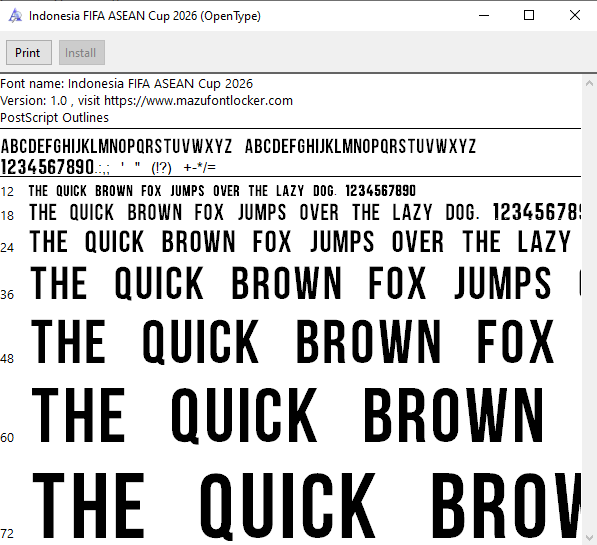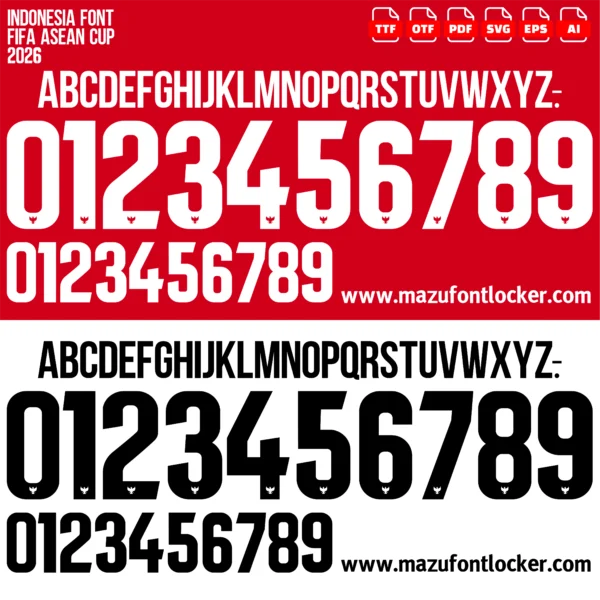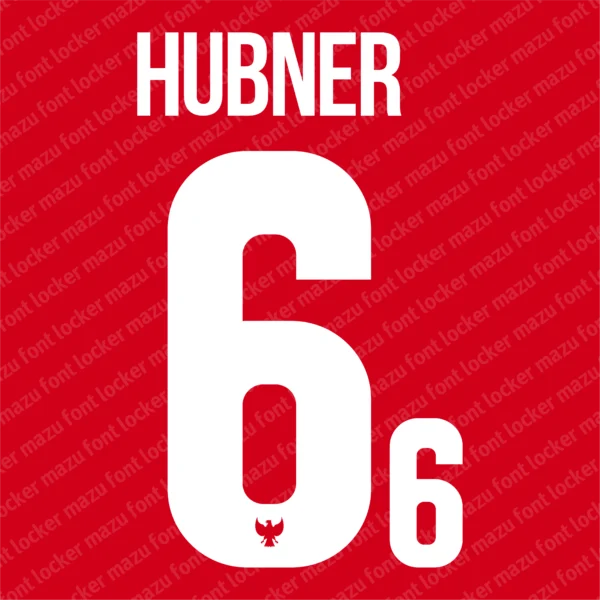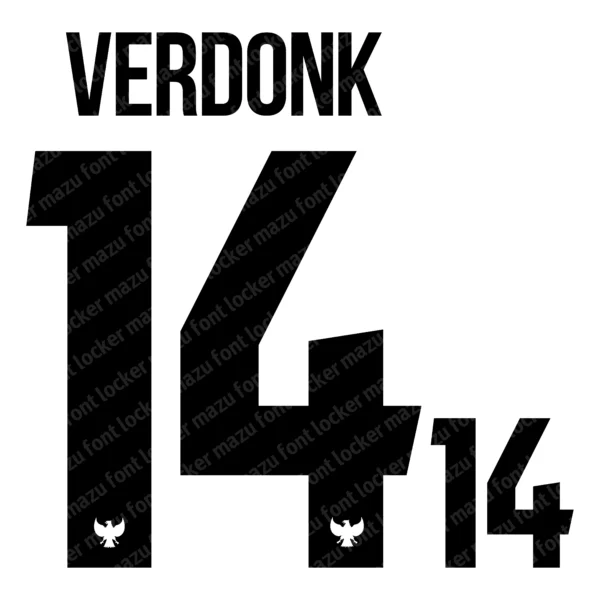
Indonesia FIFA ASEAN Cup 2026 Font Vector – Legendary Garuda Masterpiece
This font captures the razor-sharp, thunderous lettering that embodies Indonesia’s proud national identity, rich football heritage, legendary Garuda spirit, and fearless determination — delivering premium quality and explosive energy for jersey mockups, football graphics, sports branding, and fan creations.
Indonesia FIFA ASEAN Cup 2026 Font Vector – Garuda Heritage Typeface
The Indonesia FIFA ASEAN Cup 2026 Font Vector is a premium typeface that accurately recreates the official match lettering worn by the Indonesia national team during the 2026 FIFA ASEAN Cup campaign. This high-quality vector font kit captures the bold, clean, and instantly recognizable typography that perfectly complements the team’s iconic red and white identity.
Designed for professional designers, football enthusiasts, and passionate Indonesian supporters, the Indonesia FIFA ASEAN Cup 2026 Font Vector delivers exceptional authenticity for creating realistic jersey mockups, football merchandise, social media graphics, match posters, and custom fan artwork. Every character has been carefully recreated to match the powerful and precise visual style of one of Southeast Asia’s most passionate national teams.
This font stands out thanks to its precise vector construction and authentic team-inspired styling. Every letter and numeral has been meticulously recreated to match the official shirt lettering used throughout the 2026 FIFA ASEAN Cup and associated campaigns. Whether you’re producing professional kit templates or creating eye-catching football content, the Indonesia FIFA ASEAN Cup 2026 Font Vector delivers a genuine match-ready appearance inspired by the proud identity of the Garuda.
The lettering featured in the Indonesia FIFA ASEAN Cup 2026 Font Vector combines clean geometric lines with powerful modern proportions. The result is a premium and highly readable typeface that reflects Indonesia’s fighting spirit, attacking football, resilience, and proud national heritage.
• Complete uppercase A–Z alphabet and numbers 0–9 in authentic Indonesia FIFA ASEAN Cup 2026 style
• Recreate the distinctive look of Indonesia player names and squad numbers for creative projects